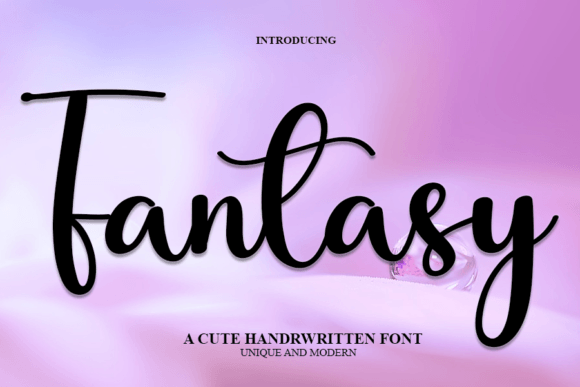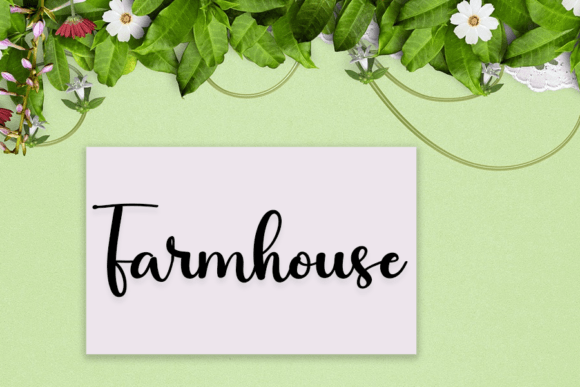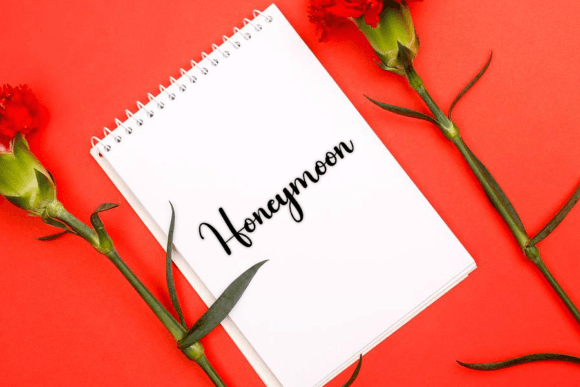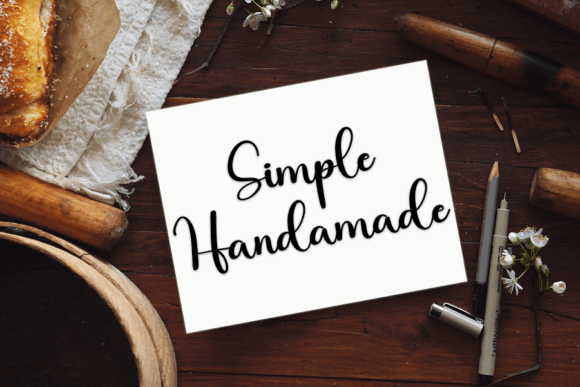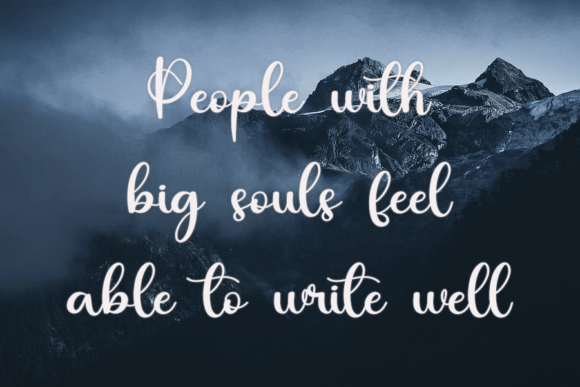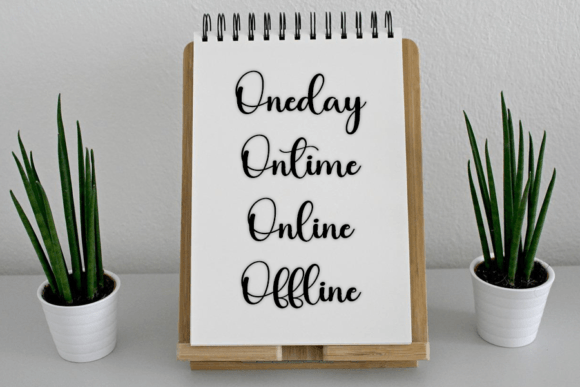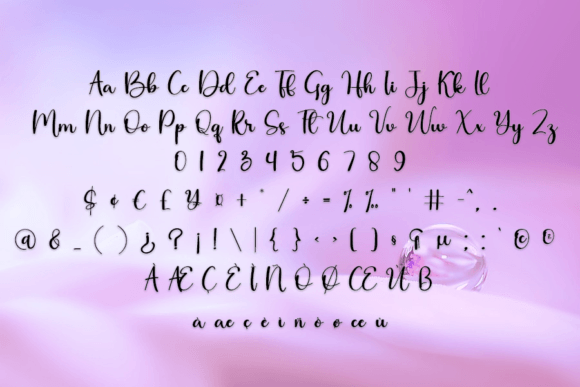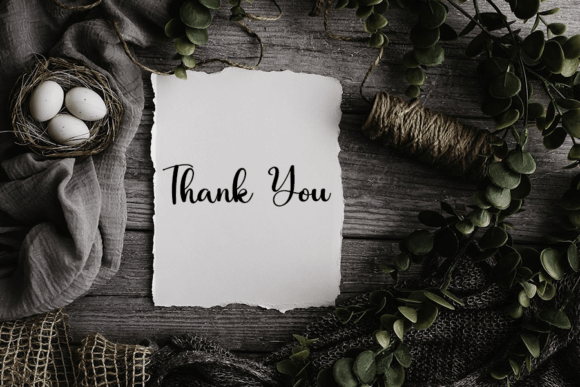
Fantasy Font
**Fantasy: An Elegant and Feminine Typeface for Alluring Headlines**
Fantasy is a typeface that exudes elegance and femininity, making it an ideal choice for creating alluring headlines that capture attention. Whether you’re designing wedding stationery, invitations, florist branding, packaging, or social media posts, Fantasy infuses a sense of sophistication and allure into your typography.
The charm of Fantasy lies in its elegant and finely crafted characters, meticulously designed to convey timeless beauty and femininity. Each letter exudes an air of grace and allure that enhances your headlines, making them stand out with elegance.
This typeface’s versatility ensures it can adapt to various design contexts. You can use it to create stunning wedding stationery that reflects the beauty of the occasion, add a touch of femininity to florist branding, infuse elegance into packaging, or create captivating social media posts that resonate with your audience.
In summary, Fantasy is more than just a typeface; it’s a source of elegance and femininity that elevates your headline designs. Its finely crafted characters make it the perfect choice for creating captivating and sophisticated typography. With Fantasy, your creative projects will shine with a touch of classic and timeless allure. Choose Fantasy, and let your headlines captivate with their elegant and feminine presence.